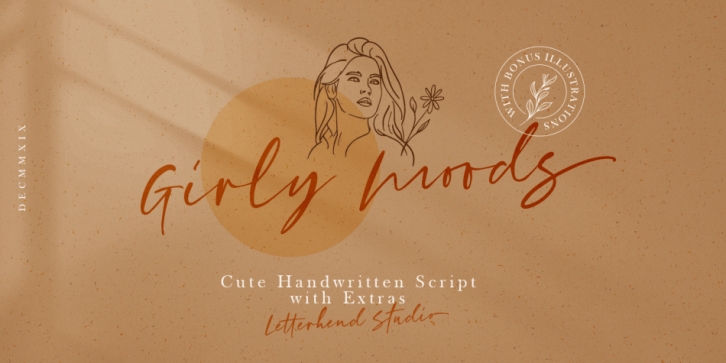
Introducing, Girly Mood, A Cute Handwritten Script with extras. This typeface feminine touch with natural handwritten calligraphy. You will also get bonus illustration in vector format.
This font perfectly made to be applied especially in logo, and the other various formal forms such as invitations, labels, logos, magazines, books, greeting / wedding cards, packaging, fashion, make up, stationery, novels, labels or any type of advertising purpose.
uppercase & lowercase
numbers and punctuation
multilingual
ligatures
alternates
swashes
Vector illustration bonus